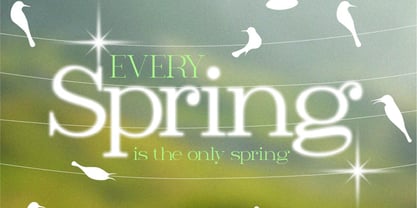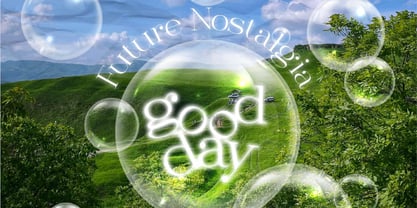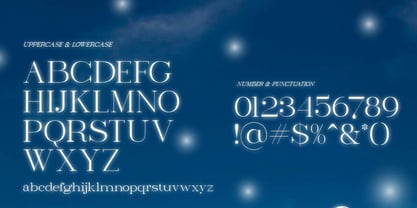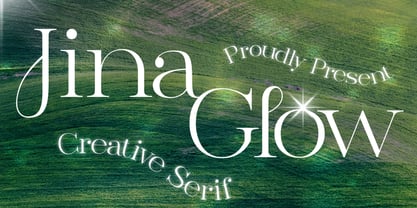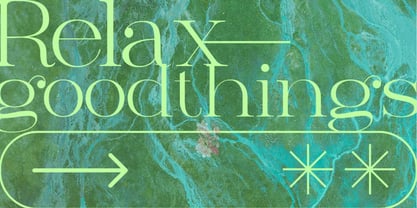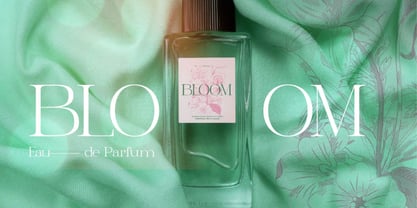
Jina Glow
La familia tipográfica Jina Glow fue diseñada por y publicada por Vadova Std. Jina Glow contiene 1 estilos. Más información sobre esta familia
Elevate your designs with Jina Glow Serif, a modern font perfect for adding elegance and style to your projects. This font offers key features like OpenType format compatibility, uppercase and lowercase characters, plus numerals and punctuation, perfect for versatile and professional designs. Whether it’s for quotes, logotypes, magazine headers or more.